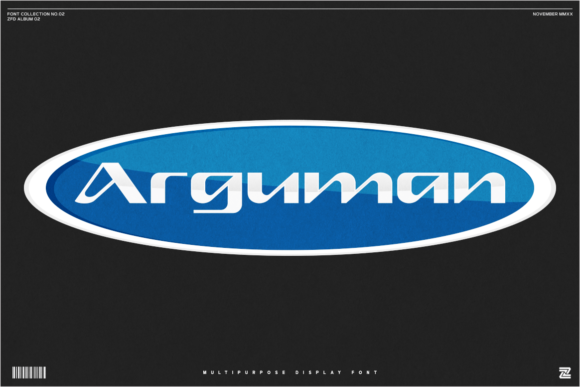
Prepare yourself to be mesmerized by Arguman, the display font that defies time and transcends the boundaries of creativity. Every stroke of Arguman embodies the essence of modernity, effortlessly blending the allure of retro aesthetics with the exhilaration of futuristic vision. It's the perfect font to ignite your imagination and leave an unforgettable impression on your audience.
Arguman is the brainchild of Zealab Fonts Division, renowned for their exceptional artistry and unwavering commitment to innovation. With Arguman, they have crafted a masterpiece that empowers you to make a bold statement with your designs. Whether you're crafting eye-catching headlines, captivating social media posts, or unforgettable logos, Arguman is your ultimate weapon.
This extraordinary font family doesn't just offer a collection of characters; it's a gateway to a realm of endless possibilities. Arguman's distinct and captivating style is perfect for adding a touch of intrigue and personality to your designs. It's the font that will make your words dance off the page and resonate with your audience on a deeper level.
Imagine the impact of your memes adorned with Arguman's bold and playful strokes. Your words will become the epicenter of laughter and engagement, leaving an imprint on the digital landscape that will be remembered long after the chuckles subside. Arguman is not just a font; it's a catalyst for viral sensations, a companion on your journey to internet fame.